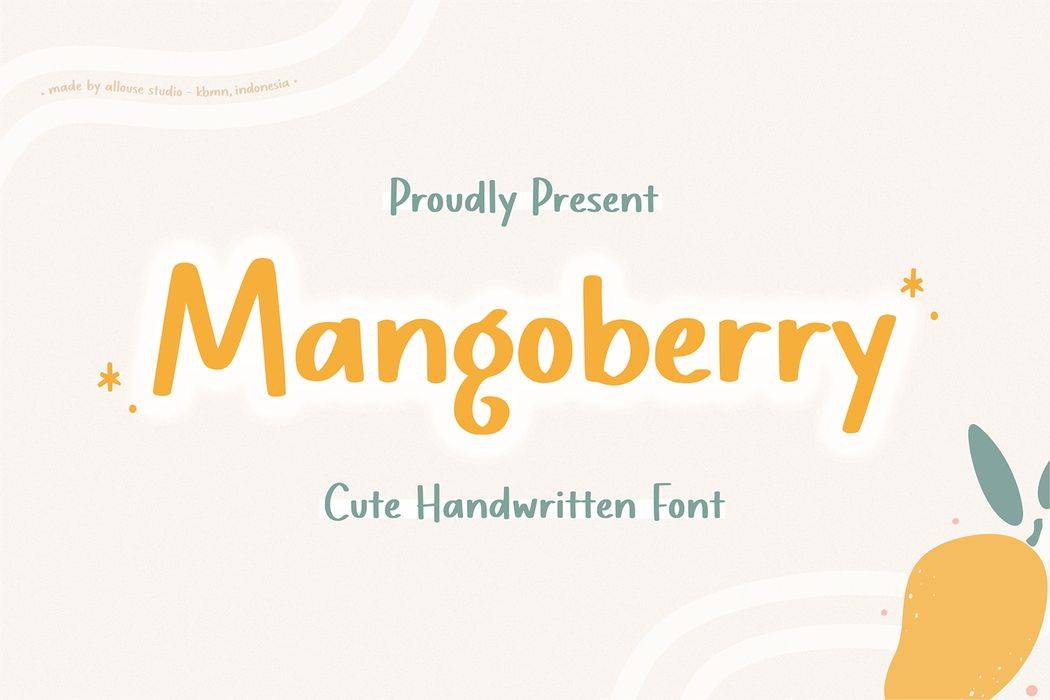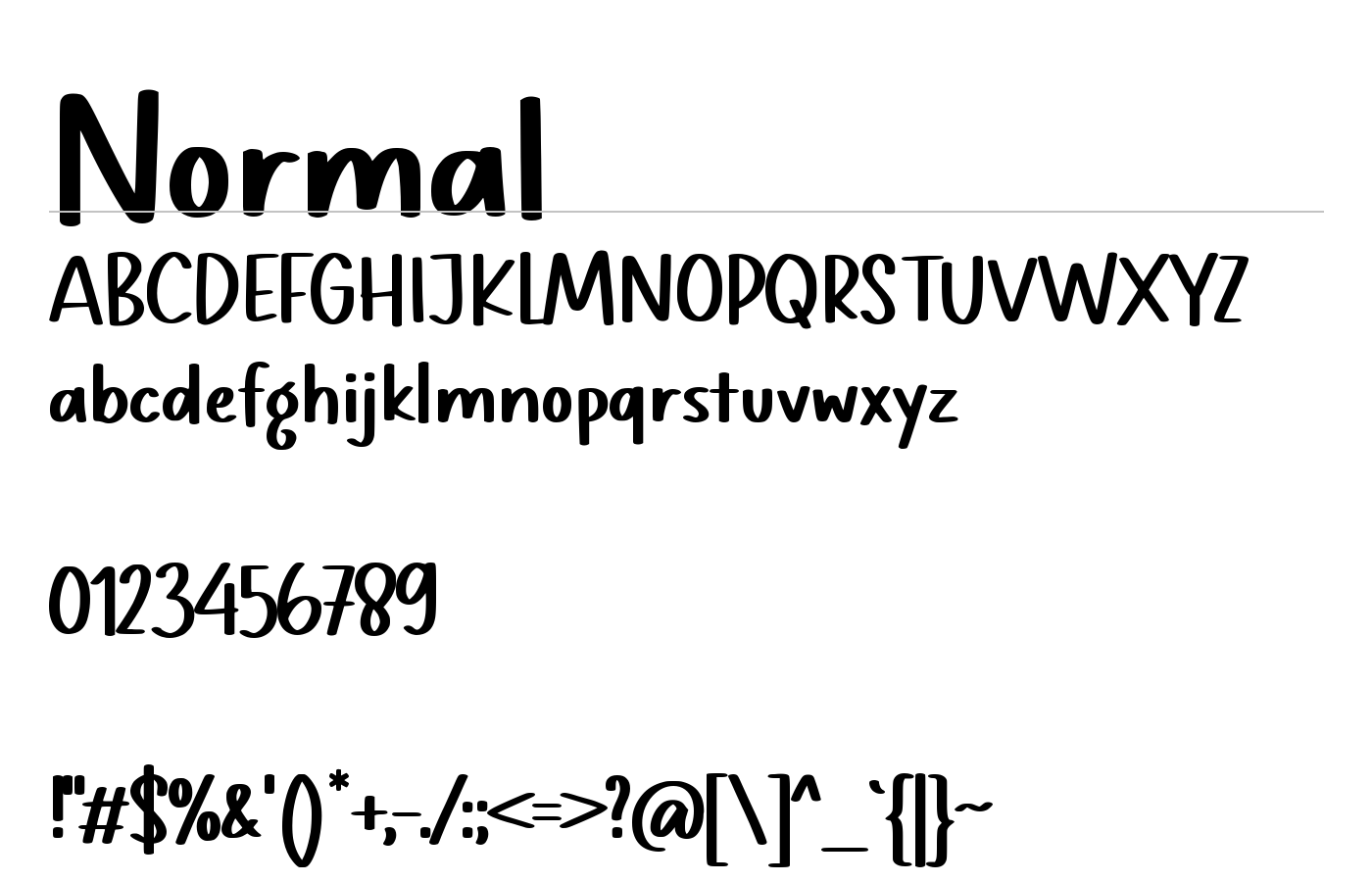
Mangoberry is a playful, casual sans serif font with a hand-drawn vibe that feels friendly and approachable. Its irregular strokes and quirky letterforms create a relaxed, informal look, making it perfect for creative projects, children’s designs, and fun branding that wants to convey warmth and personality. This font works well in headlines, logos, and invitations where a cheerful and unique style is desired.
Mangoberry Font
About Mangoberry Font